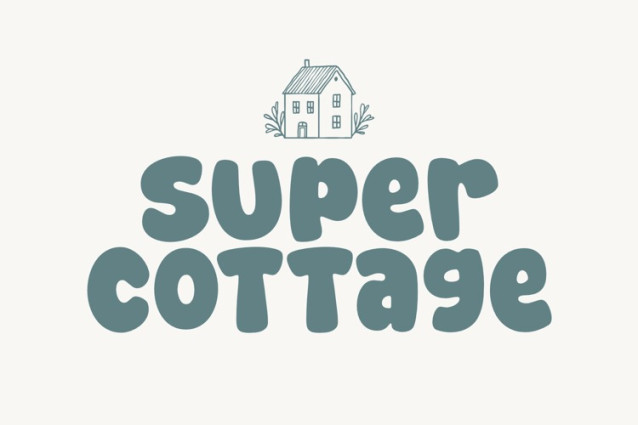
Super Cottage Font
Super Cottage Font is a fun and playful font with a cartoony feel. The thick strokes and large letters make it perfect for headlines and other large-scale text. The rounded edges and simple shapes give it a lighthearted and fun look. It’s the perfect font for projects that need a touch of personality.